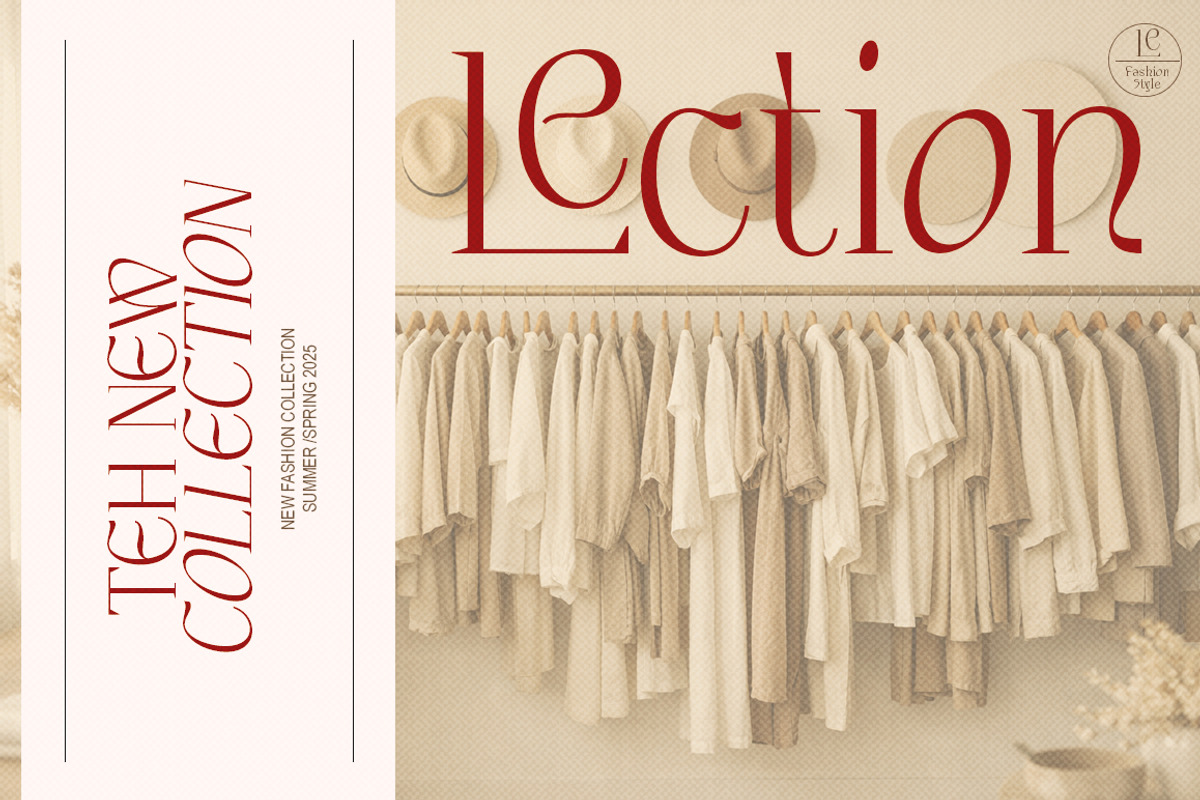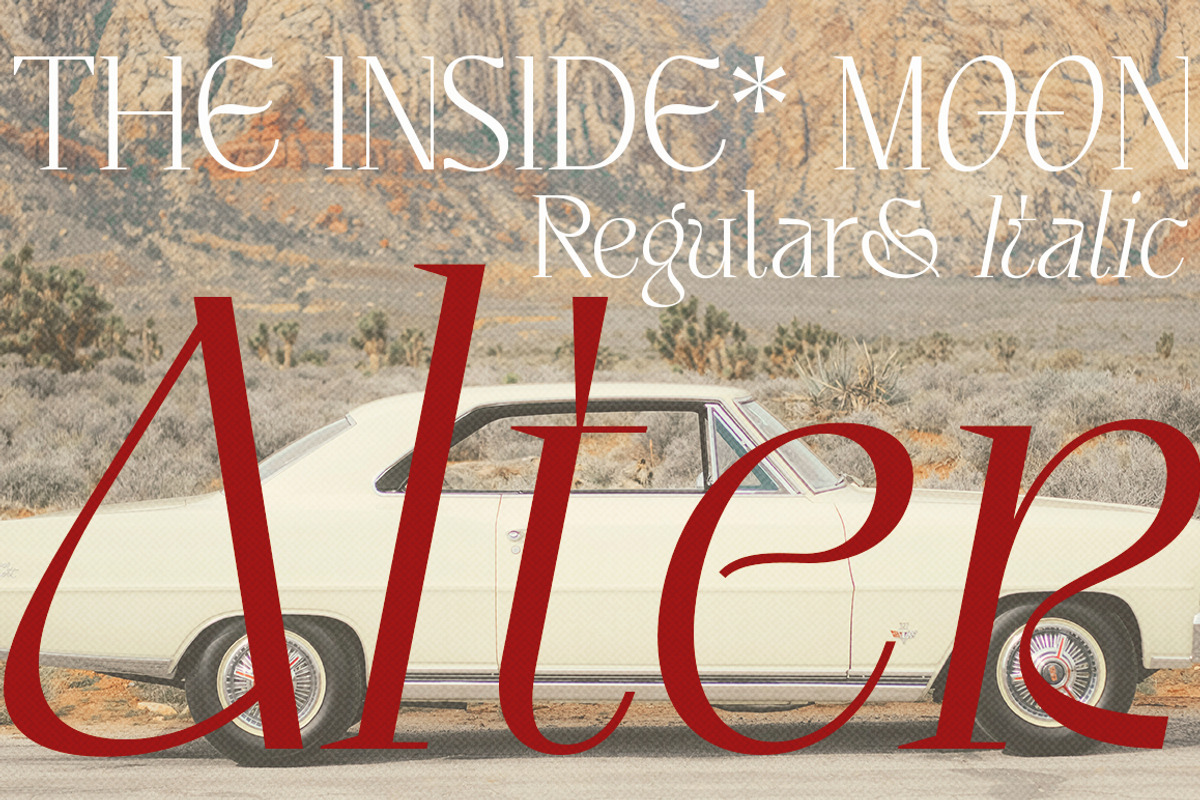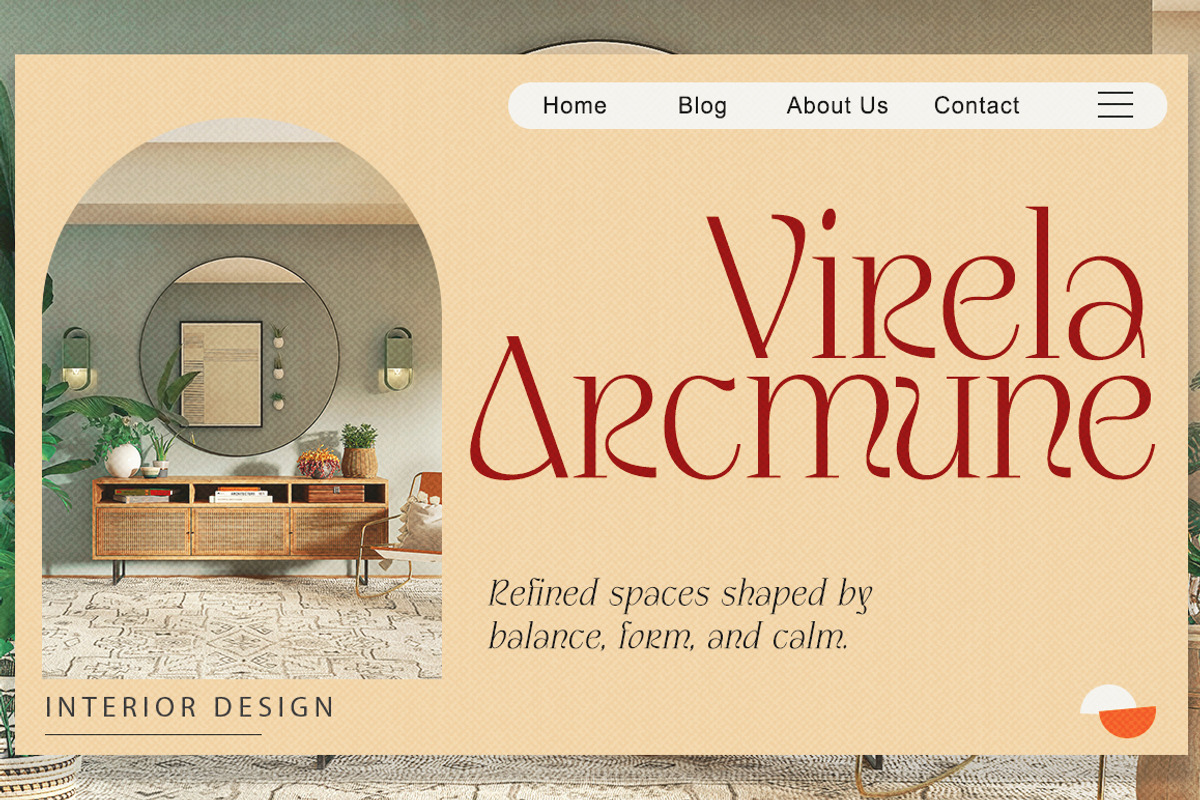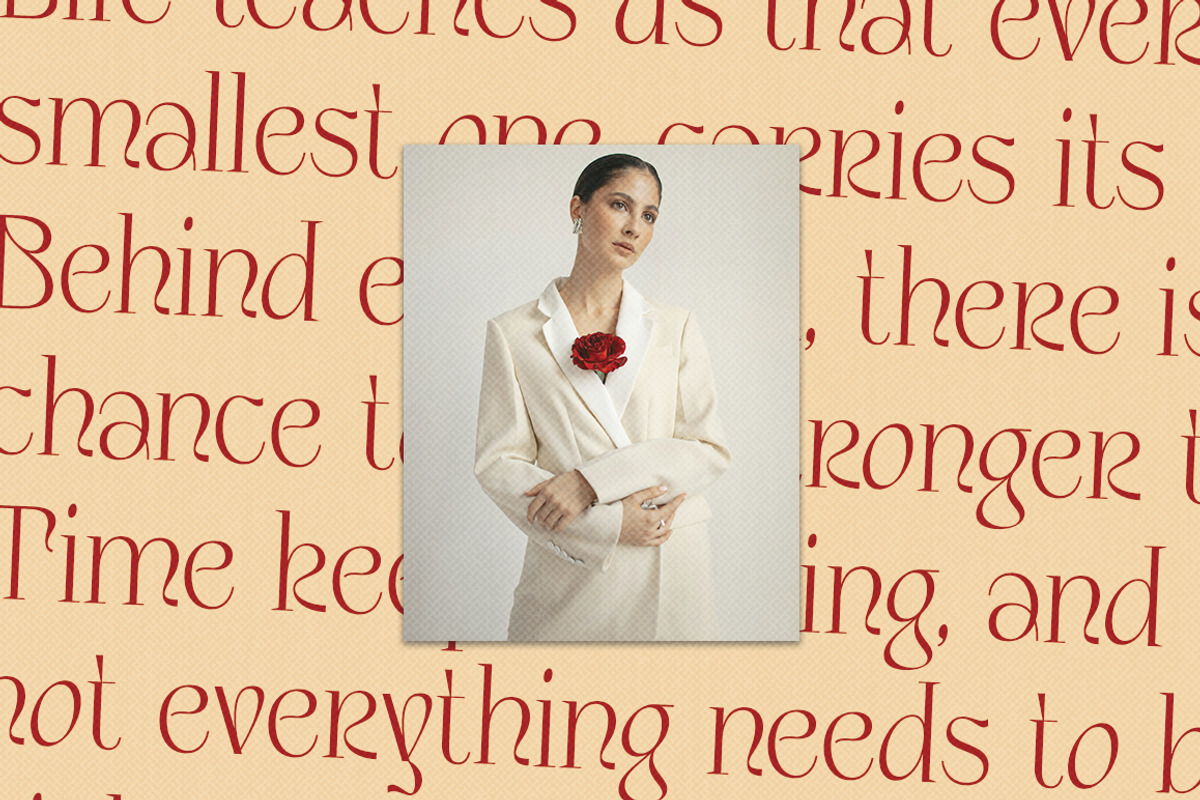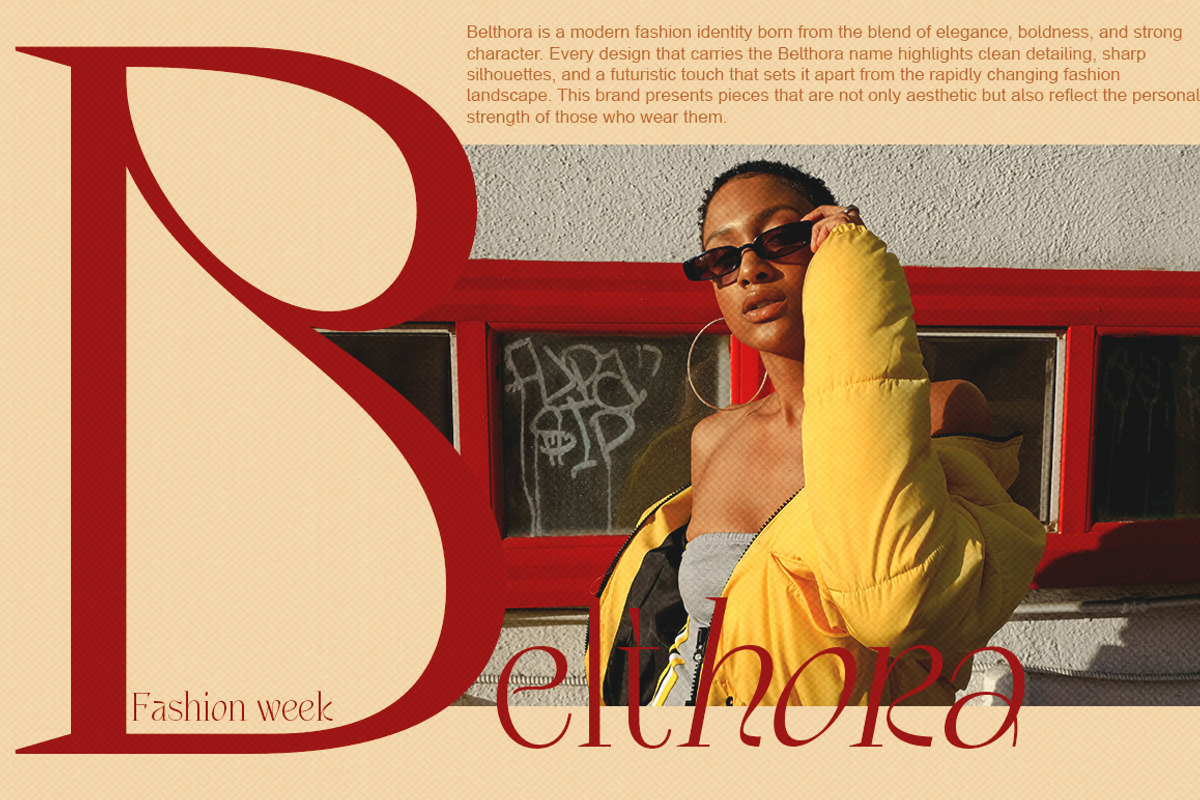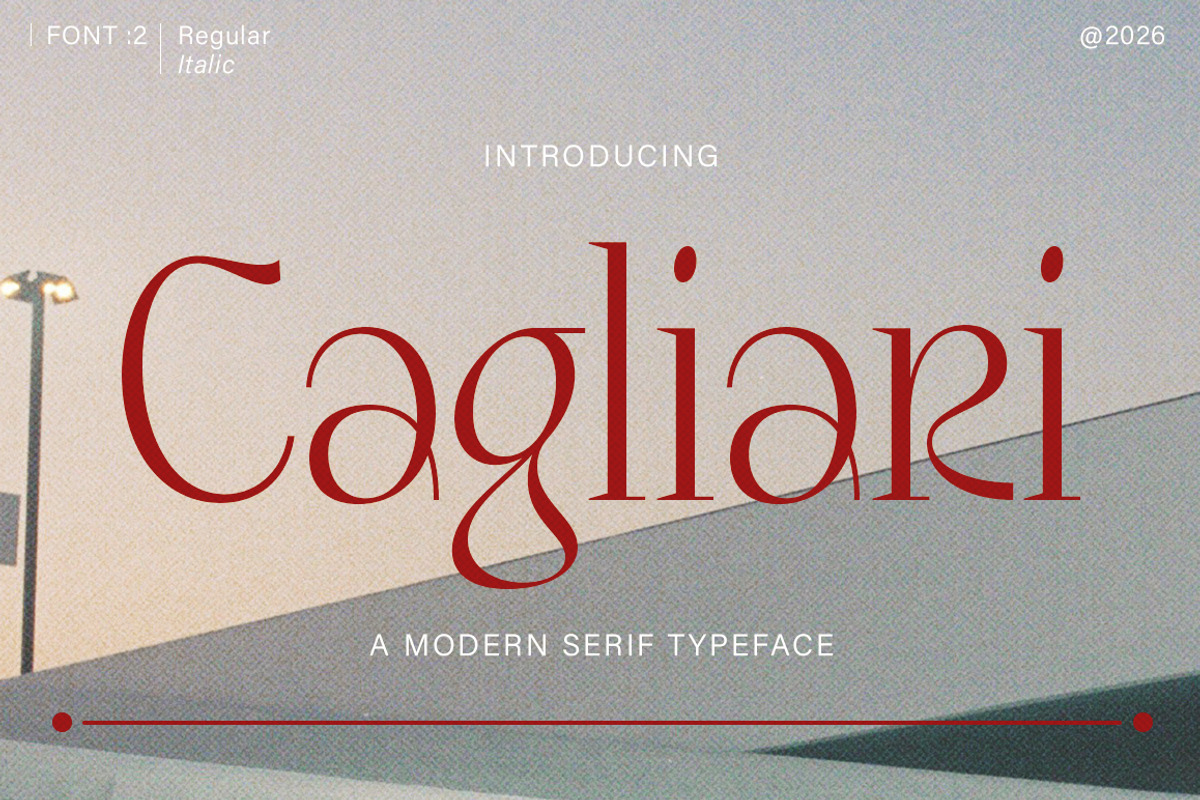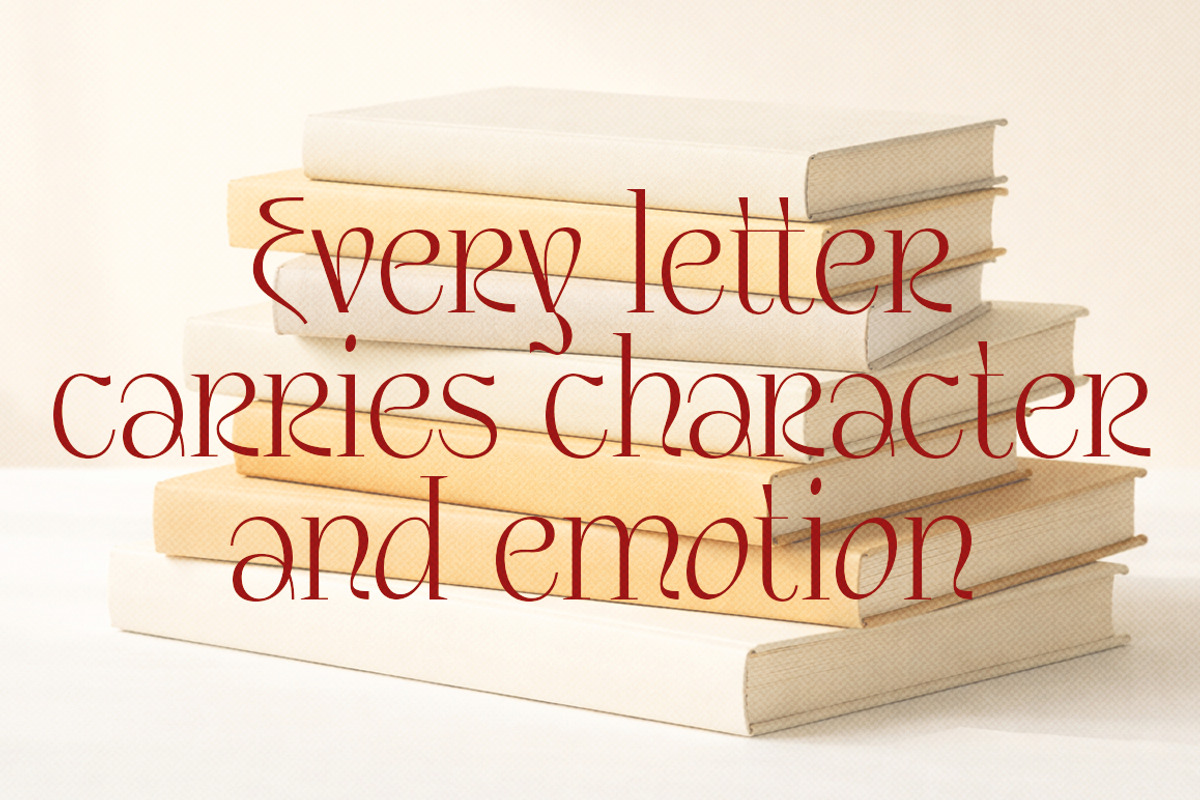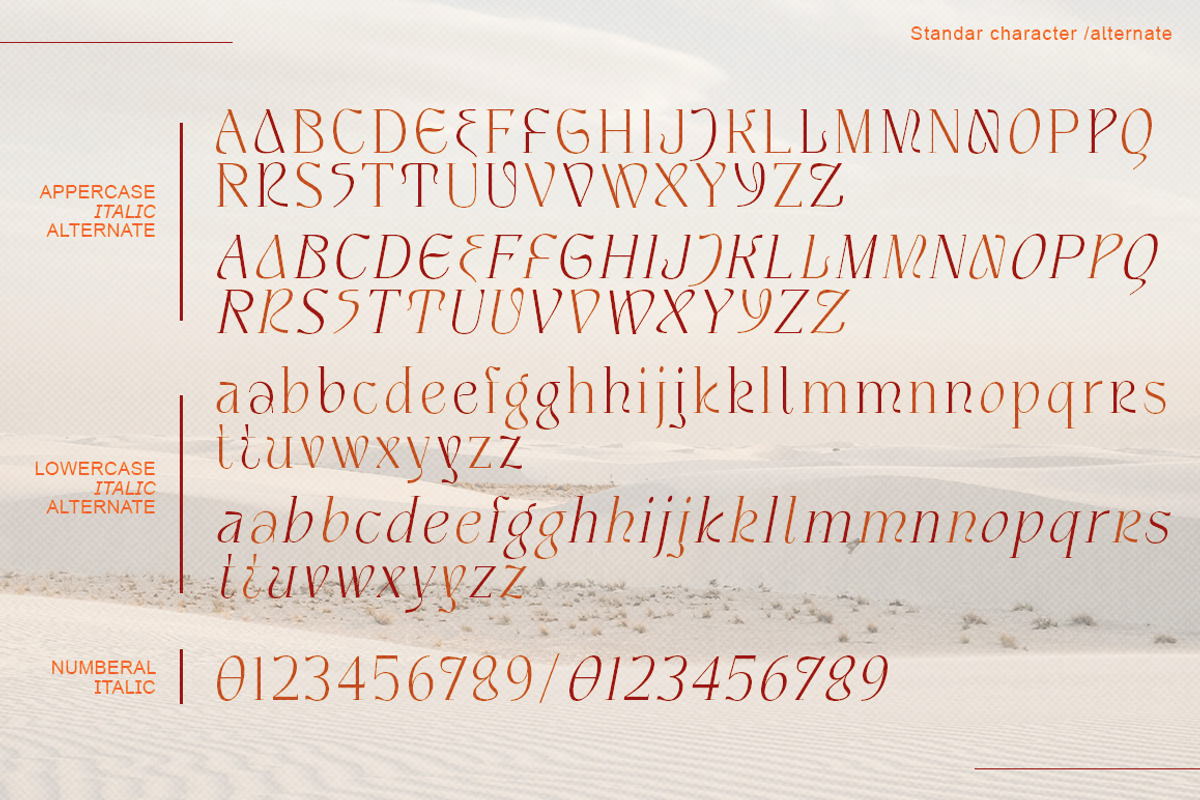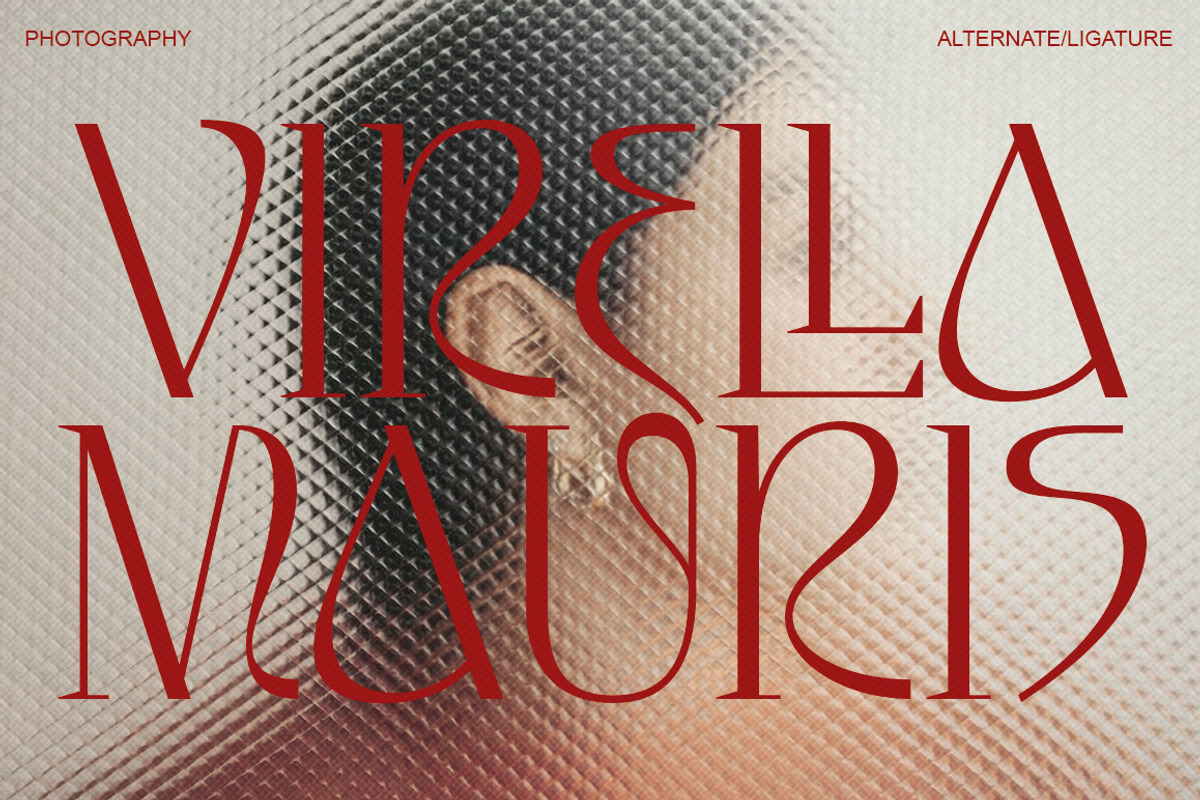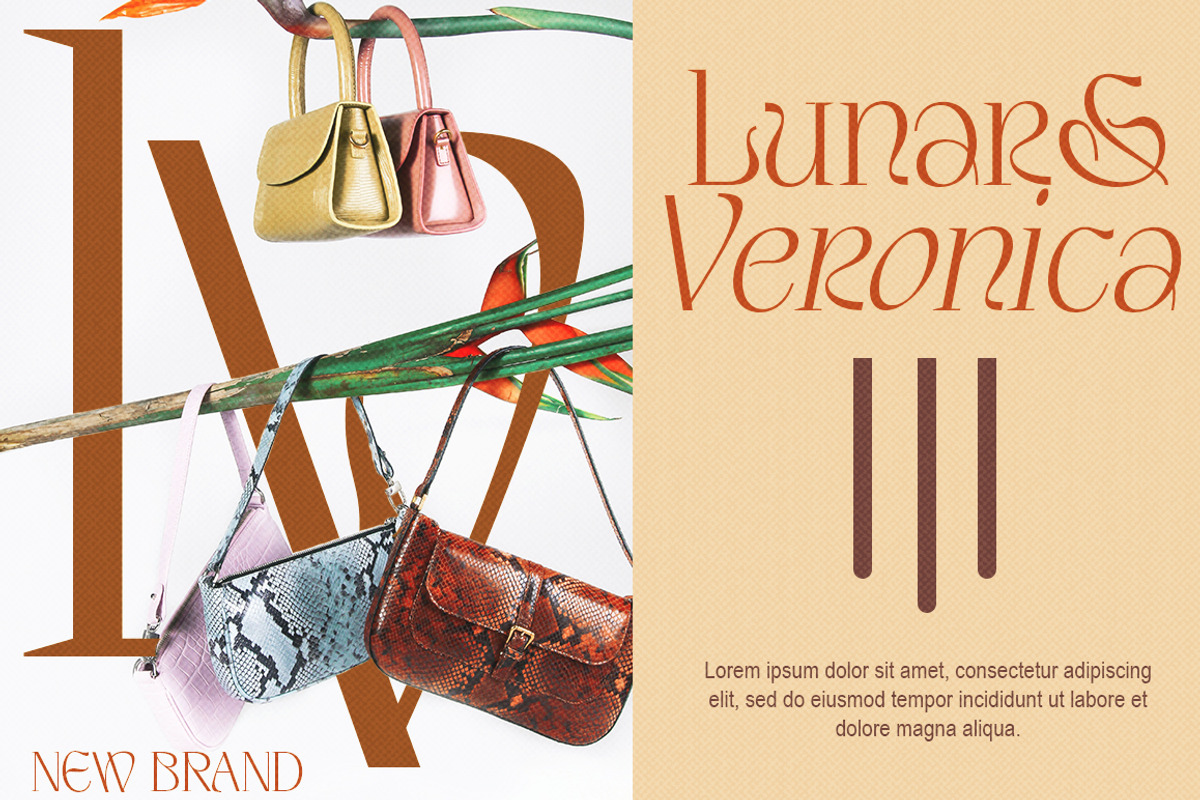
Cagliari
Cagliari is my new elegant serif font that will give your projects a touch of luxury and style. It's perfect for logotypes, branding, monograms and wedding invitations, blog headlines, and more. Browse through all the previews and get as inspired as I was when creating this font.